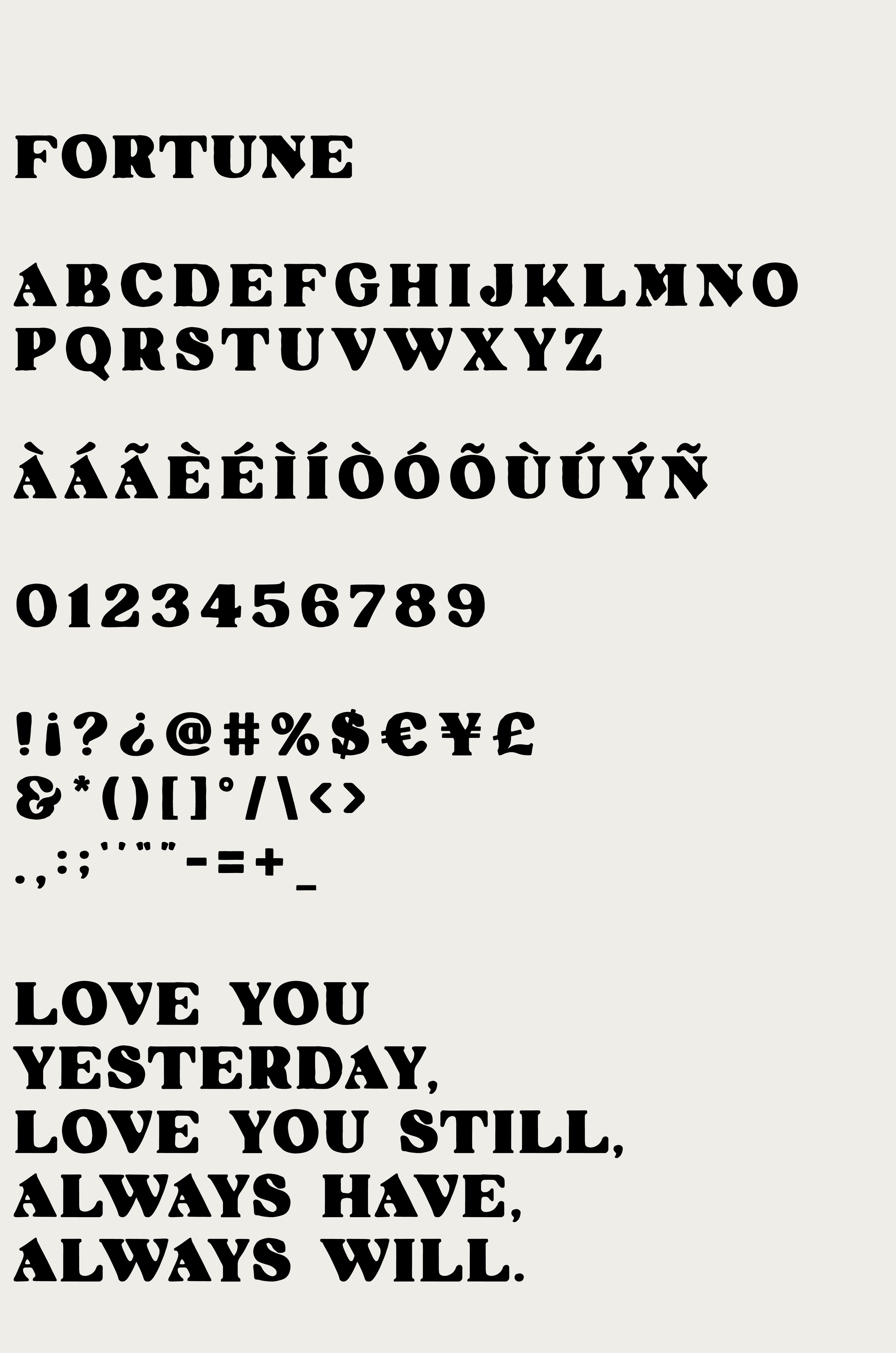
Fortune
Introducing Fortune. A fat legged serif display typeface
• Fortune: Character set shown below.
• Uppercase letters and digits
• Full punctuation
• Support for over 50 languages.